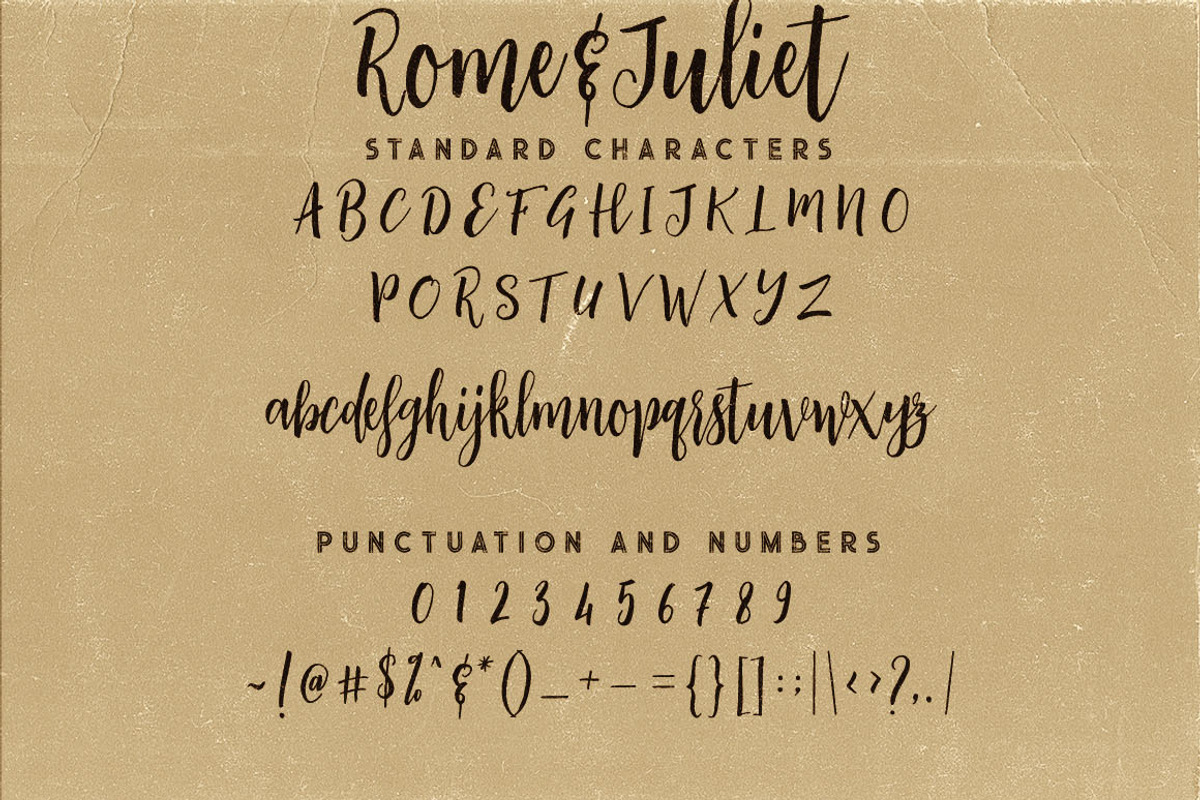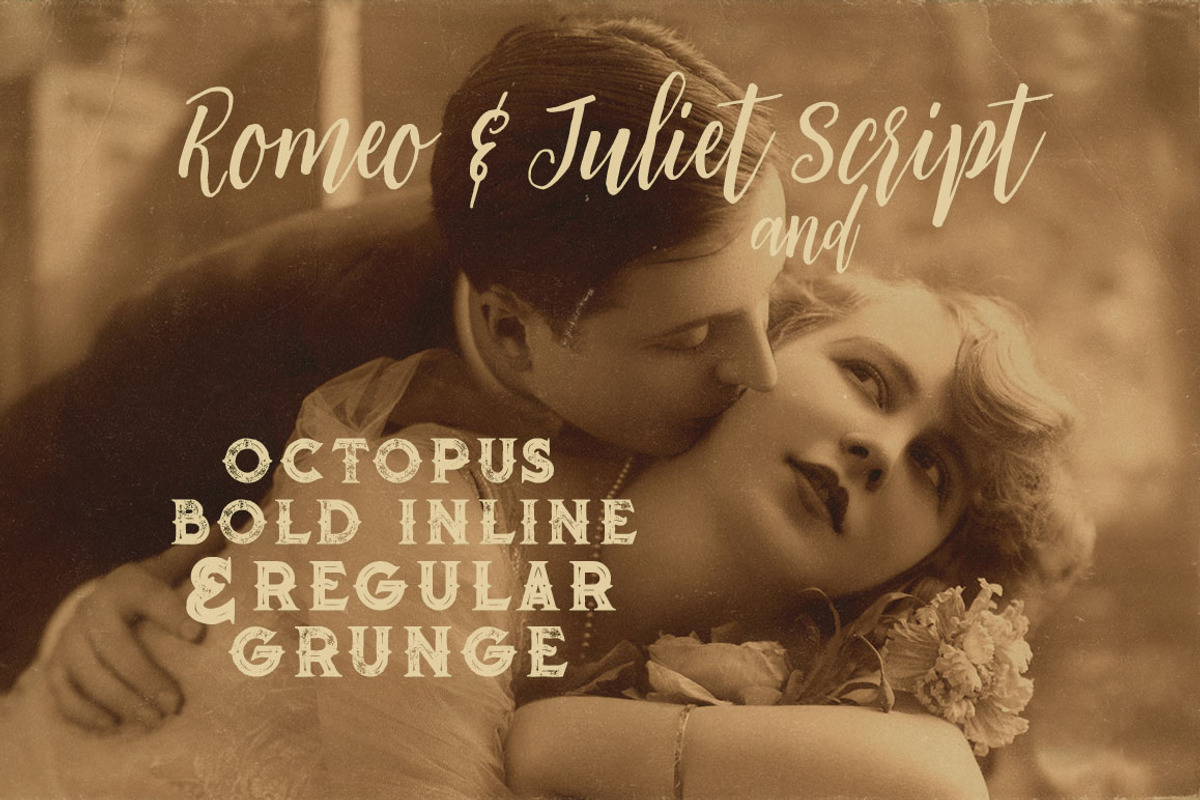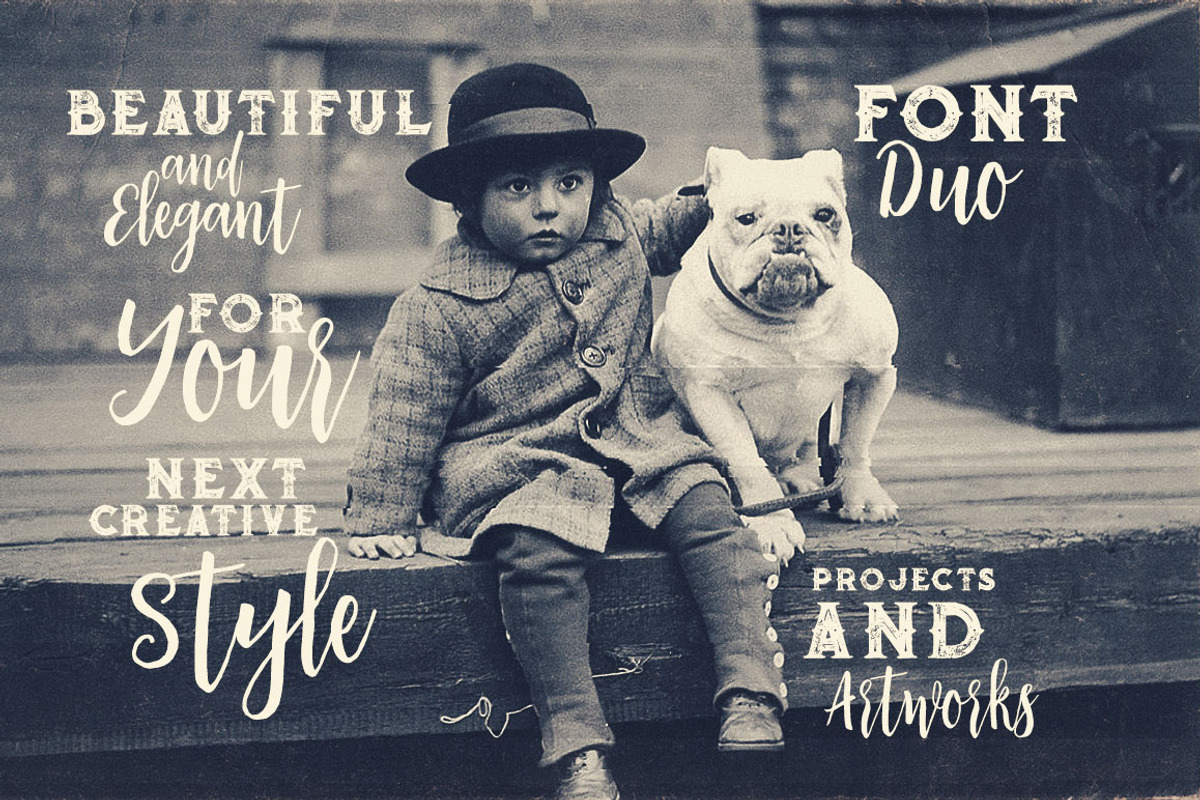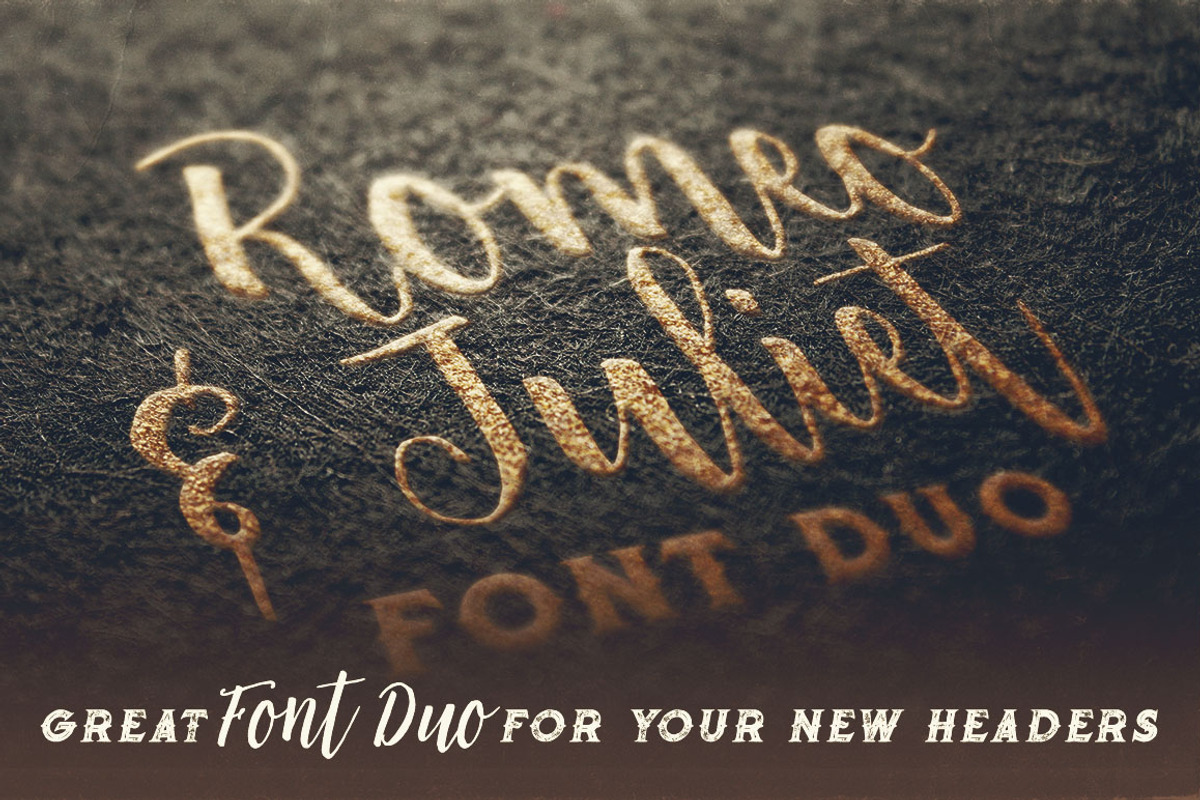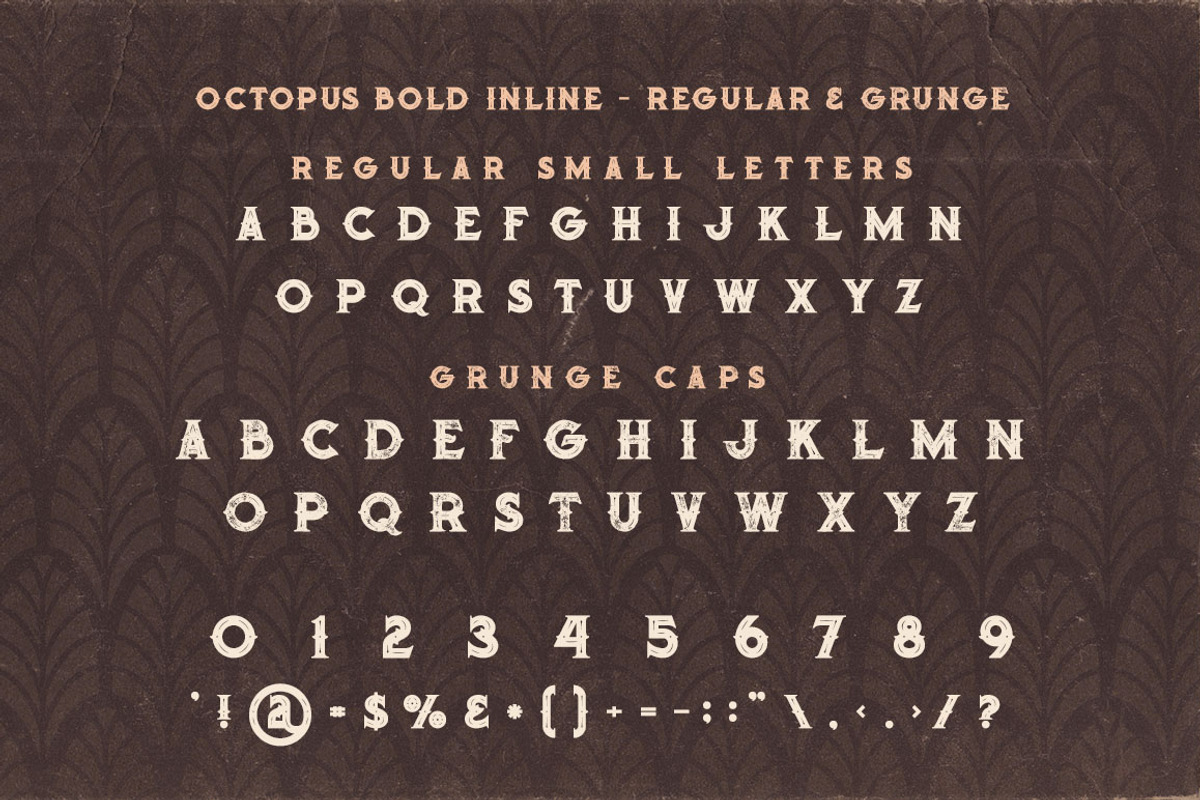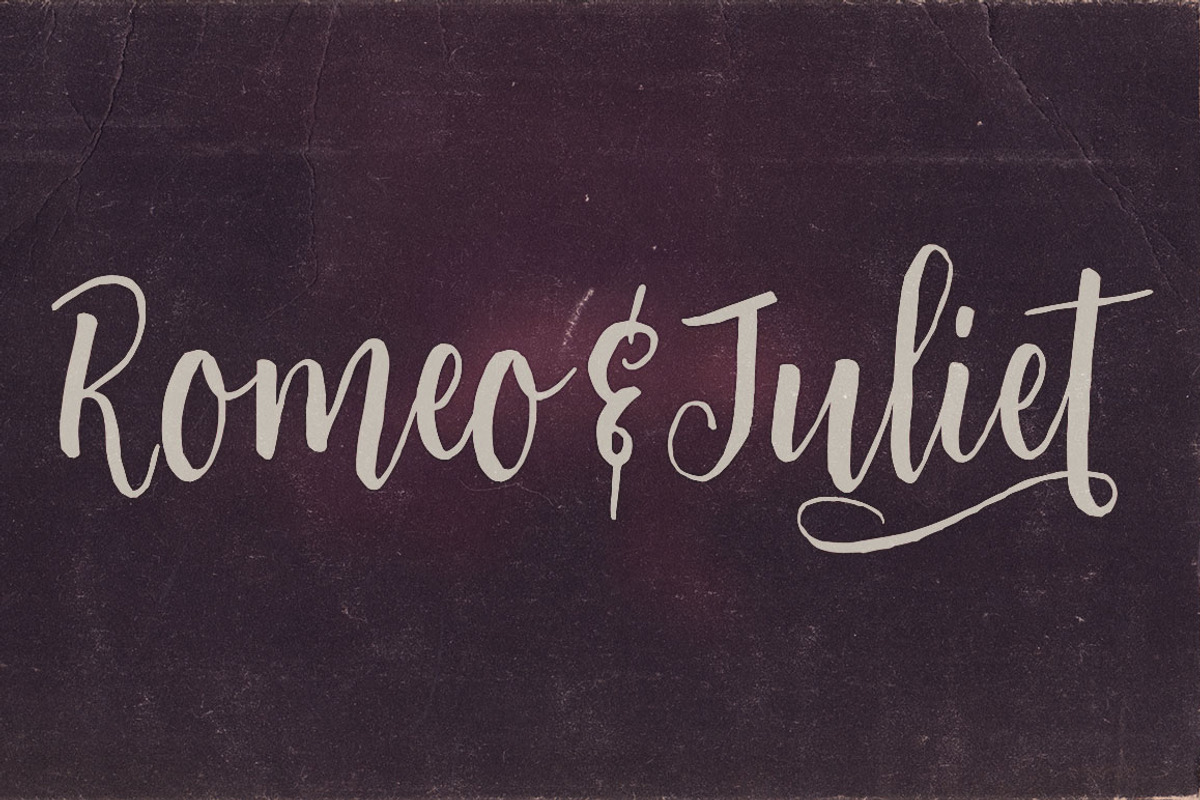
Romeo & Juliet Font Duo
Cool retro or vintage style font duo for your new projects. First font is handdrown & unique style brush script font with multi language support and lot of stylistic alternates + swash font. Second font is bold display font with regular & grunge version (without multi language support).
- First font is handdrown & unique style brush script font with multi language support and lot of stylistic alternates + swash font.
Romeo & Juliet Font Duo by Deeezy fits naturally into Branding, posters, packaging, typography.